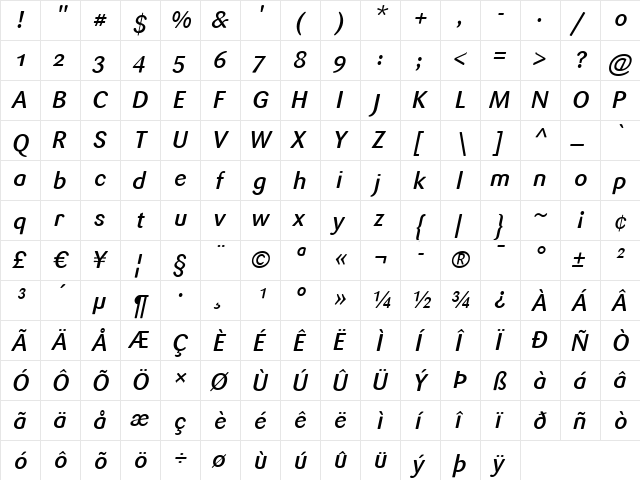
Sari Medium Italic
Design Context for Sari Typeface
Sari offers clean, dependable letterforms without strong stylistic allegiance, making it a practical choice for designers who need flexibility. The dynamic lean of this cut emphasises speed and emphasis in any layout.
Pro Tip: Use Sari for emphasis, pull quotes, and subheadings where its slanted energy can add rhythm to the layout.